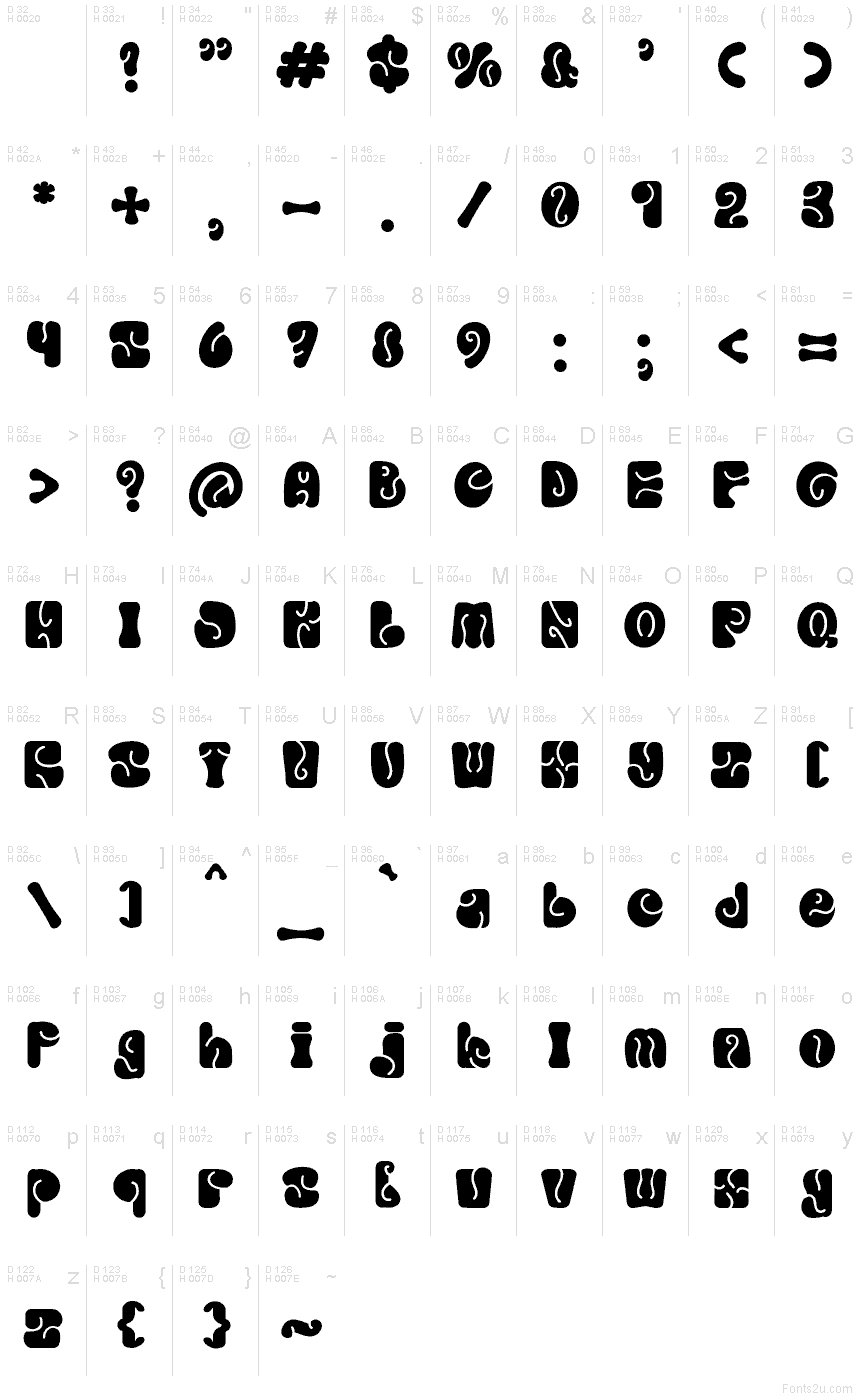
Retro Votre
Retro Votre font by Dhabee Studio is a free groovy display typeface that looks like it’s been poured onto the page in liquid ink. Thick, pillowy letterforms swell into each other, with crisp white cuts and swirls carving out the strokes from the inside, giving a trippy, almost lava-lamp effect. The rhythm is slow and wavy, so every word feels like a logo, grabbing attention with bold silhouettes and hypnotic negative space.
Using Retro Votre, you can instantly push posters, music covers, festival branding, packaging, merch, and social media graphics into full-on psychedelic territory. This free font shines when used big and bold, letting the chunky shapes and inner curves stay legible from a distance. Pair it with a clean, narrow sans-serif for body text to balance its heavy, inky presence and keep your layouts readable.